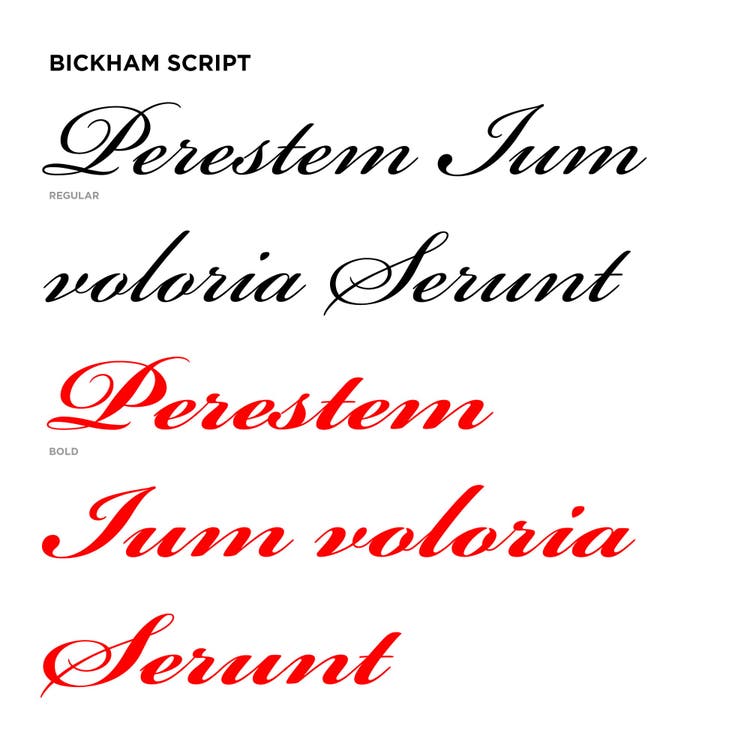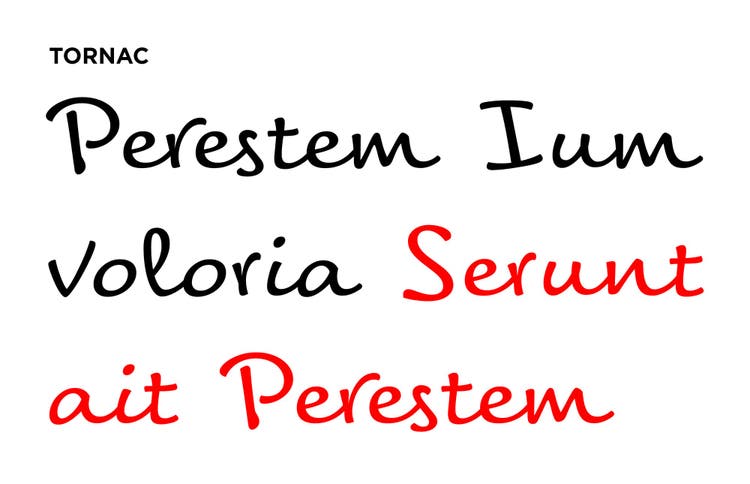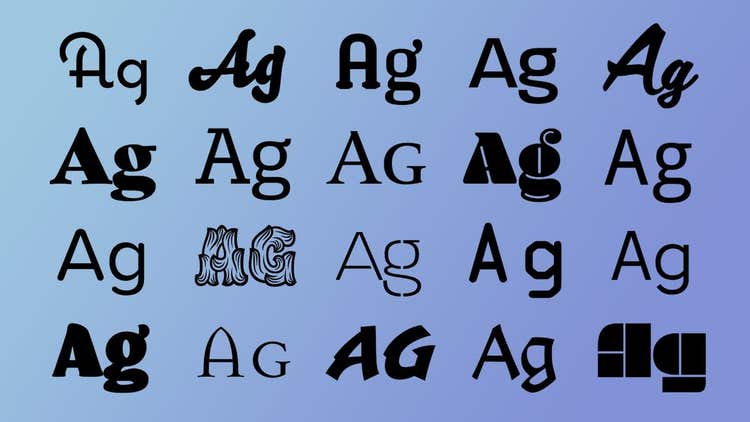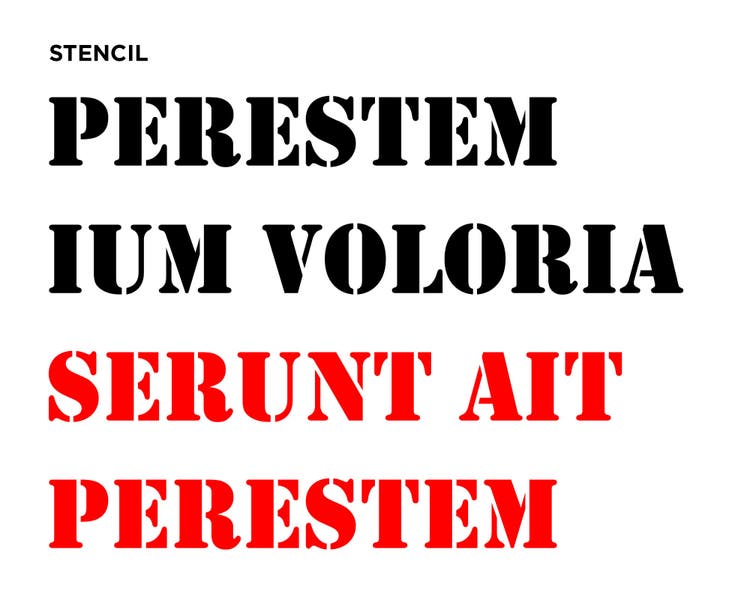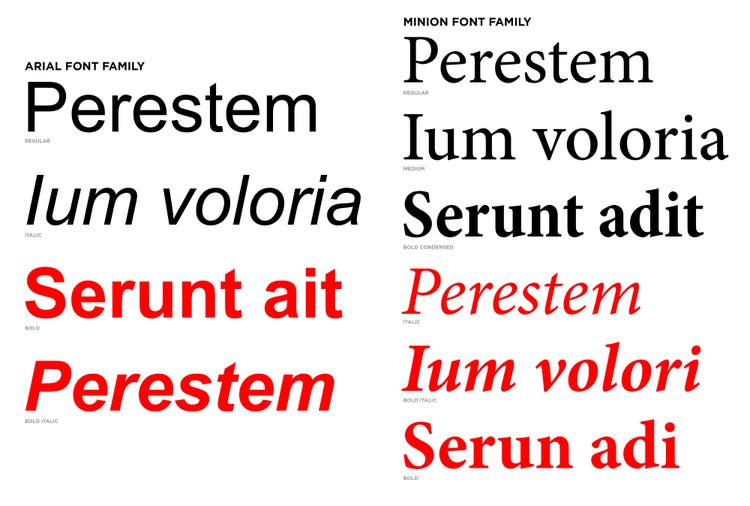
You’ve been asked to design something. Maybe it’s a flyer advertising your company’s next seminar. Maybe it’s the invitations to your friend’s wedding. You know what you want the project to look like. You know what tone you want to convey, but for some reason your ideas aren’t coming across in the final design.
If this sounds familiar, take a look at your fonts.
**What are fonts? **
If you’ve ever used a word processor, you probably have a basic understanding of what we mean by “font.” However, when working on a design project where font is essential for conveying meaning, you have to understand the difference between type, typeface, and font.
- Type is the generic term for everything that goes into visual text, although it originally referred to the actual pieces of wood or metal used to create physical letters.
- Typography is the phrase designers use to refer to the style and appearance of printed text. Designers can specialize in typography, the art of designing and arranging text visually.
- Typeface, or font family, is an alphabet designed so that all the letters and symbols have similar features. For instance, Times, Arial, and Minion are all typefaces.
- Font, then, refers to the specific style of a typeface. Arial Black is a font of the Arial typeface. Minion Pro Italic is a font belonging to the Minion font family.
Why are fonts so important?
You might think that the exact fonts you choose for your project don’t matter, as long as the audience can read and understand the information. But type does more for a design than simply share the written message. Fonts actually go a long way toward defining the tone of your piece and creating a solid brand identity.
According to Josh Baron, the multimedia art director for brand management agency Sparxoo, “Type choice is critical. A brand’s typography is as important as any other element associated with an identity. In many cases, it’s the vessel for that brand voice.”
Different fonts invoke different feelings in the viewer. The style you choose for your text can let the viewer understand the heart of your message before they read a word. It can also add visual flavor to your design in a way that catches the eye without being superfluous. You should put as much energy into selecting and pairing appropriate fonts as you put into the rest of your design.
**How do I choose the right font? **
Let’s briefly review some terminology. The two basic font styles are serif and sans serif. The serif is the small line at the end of a stroke on a letter.
- Calibri is a sans serif font.
- Cambria is a serif font.
In modern design, body copy is acceptable in both serif or sans serif typefaces. Whichever you choose, try to find a simple font that will be legible and readable. Before you settle on a font, step away from the computer, and see how easy it is to read. If you’re planning on making physical copies, print out examples of fonts you’re interested in to see how legible they are on paper. Some fonts are more readable on a full-size poster than on a screen.
“Test and look,” Dan Rhatigan, senior manager on the Adobe Type team, says. “It doesn’t help to pick a typeface because you like the name or because it has a single gimmick that interests you. Try a few typefaces, see how they behave in your design, and compare the results.”
Don’t be afraid to experiment with many different fonts, especially if you’re new to design. Sometimes, you can’t tell what will look good until you see it on the page.
**How many different fonts should I use? **
One of the most important tips to remember when creating a cohesive design is to select no more than two or three fonts for your project. Using too many different fonts for different sections of the design will distract and confuse the reader.
Like with any other design element, your font choices should conform to basic principles like contrast and repetition. If you plan to use multiple fonts, find selections that are distinct enough to distinguish separate pieces of information, but that visually work together.
An effective way to find fonts that complement each other and give your design variety is to use multiple fonts belonging to one family. Choose a typeface that comes with options such as bold, italic, light, medium, and black. The different fonts from within the same family pair well together, but they break up the text and help draw attention to your project.
- Alegreya, for example, has normal, bold, and black options.
**How do I make my design stand out? **
Sans serif and serif fonts are great for body copy, but if you want your design to pop, use a display or header font that is a bit more eye-catching.
“Since a header’s function is to grab your attention with just a few words, there’s a lot more variety of fonts to choose from,” Dan says. “It is much easier to get away with typefaces that have bigger personalities or that might not be as easy to read at smaller sizes.”